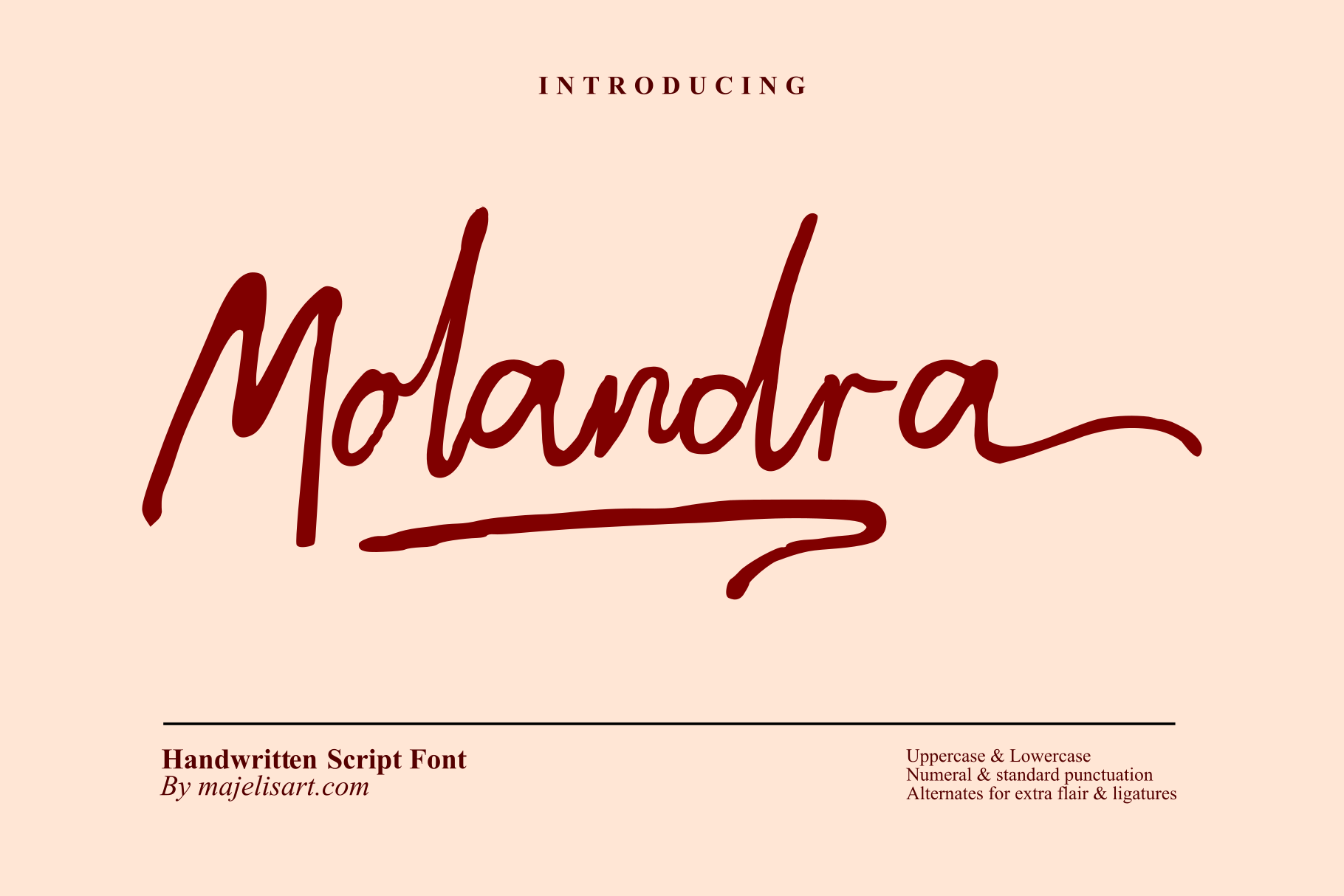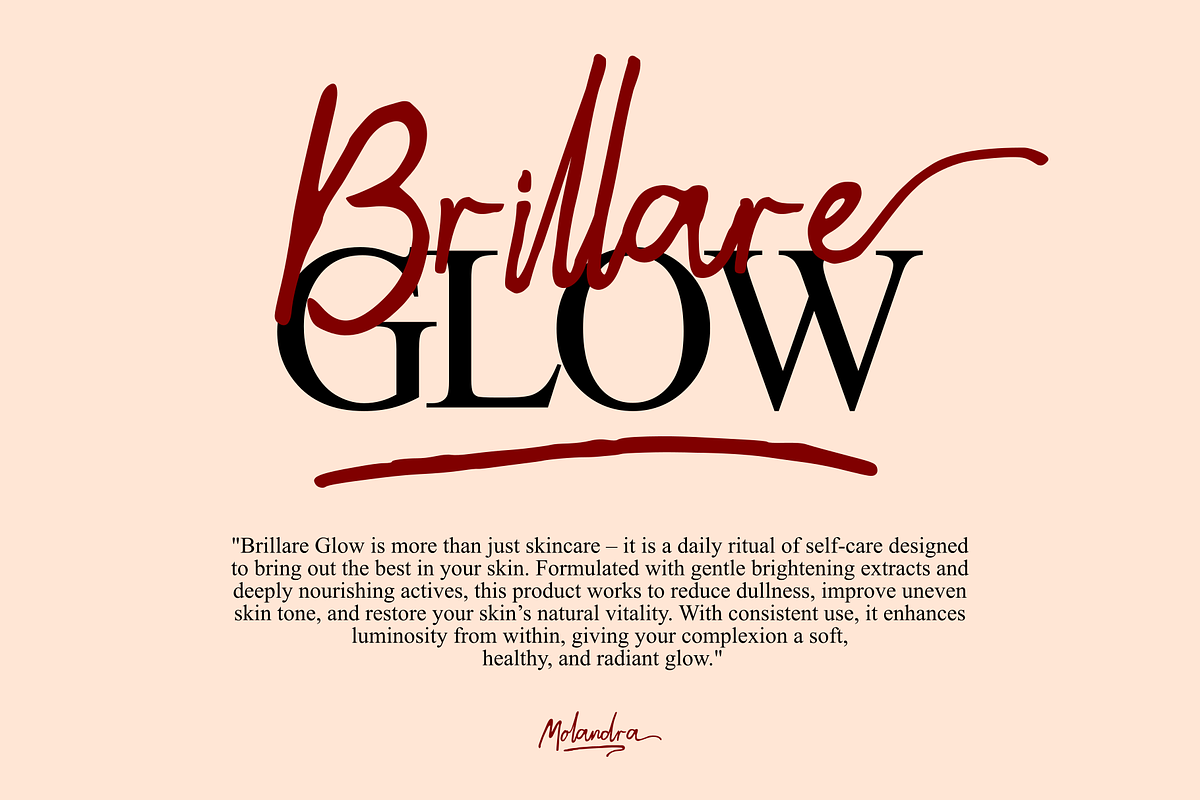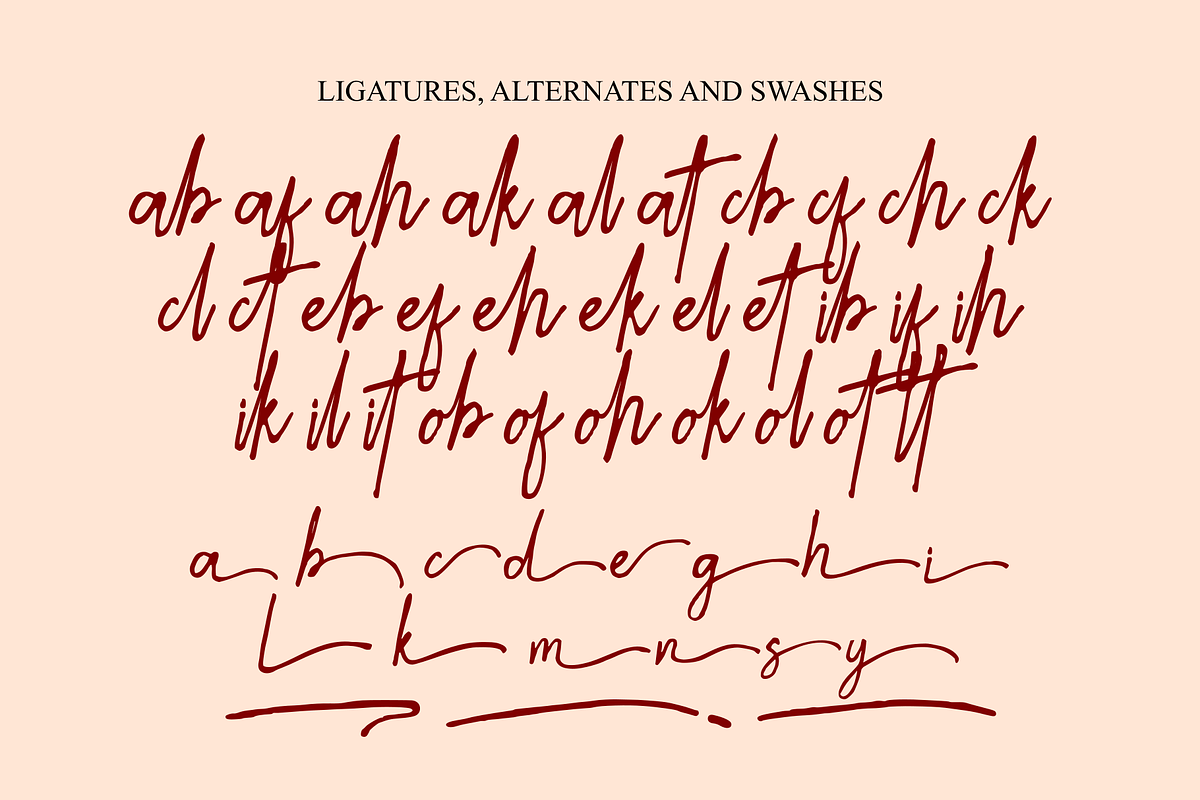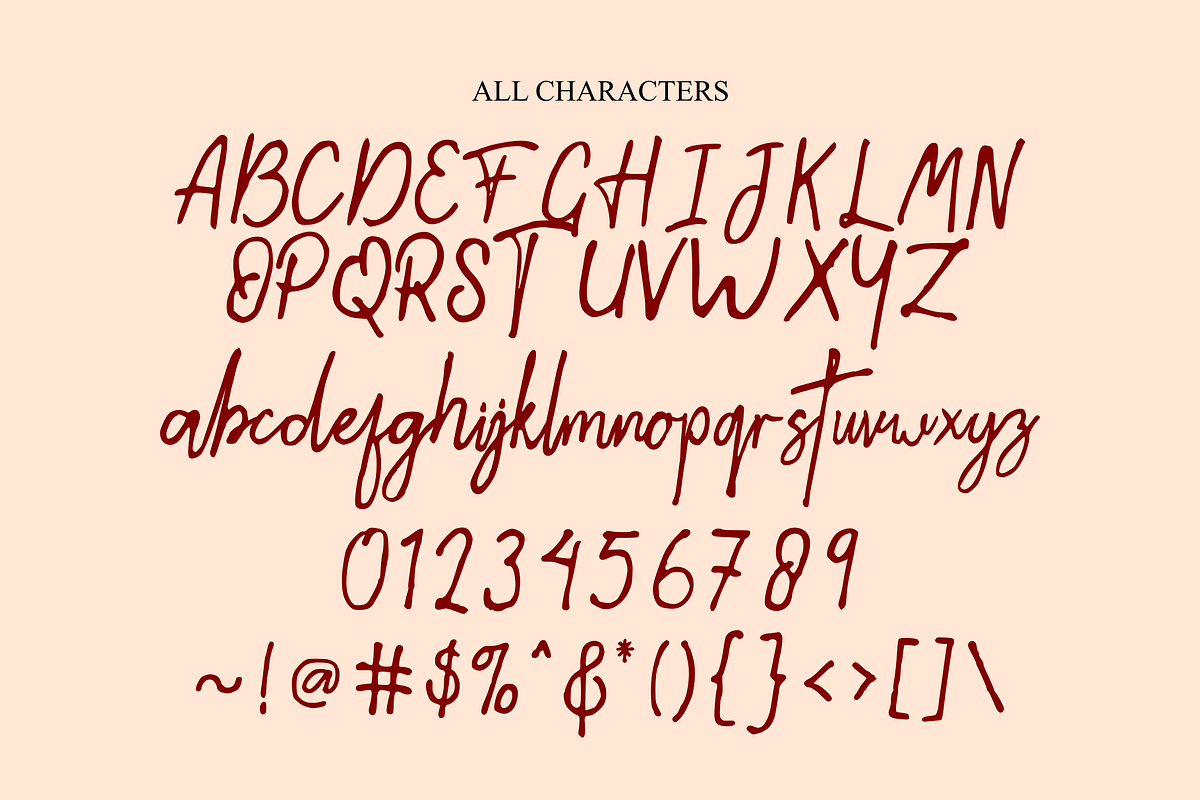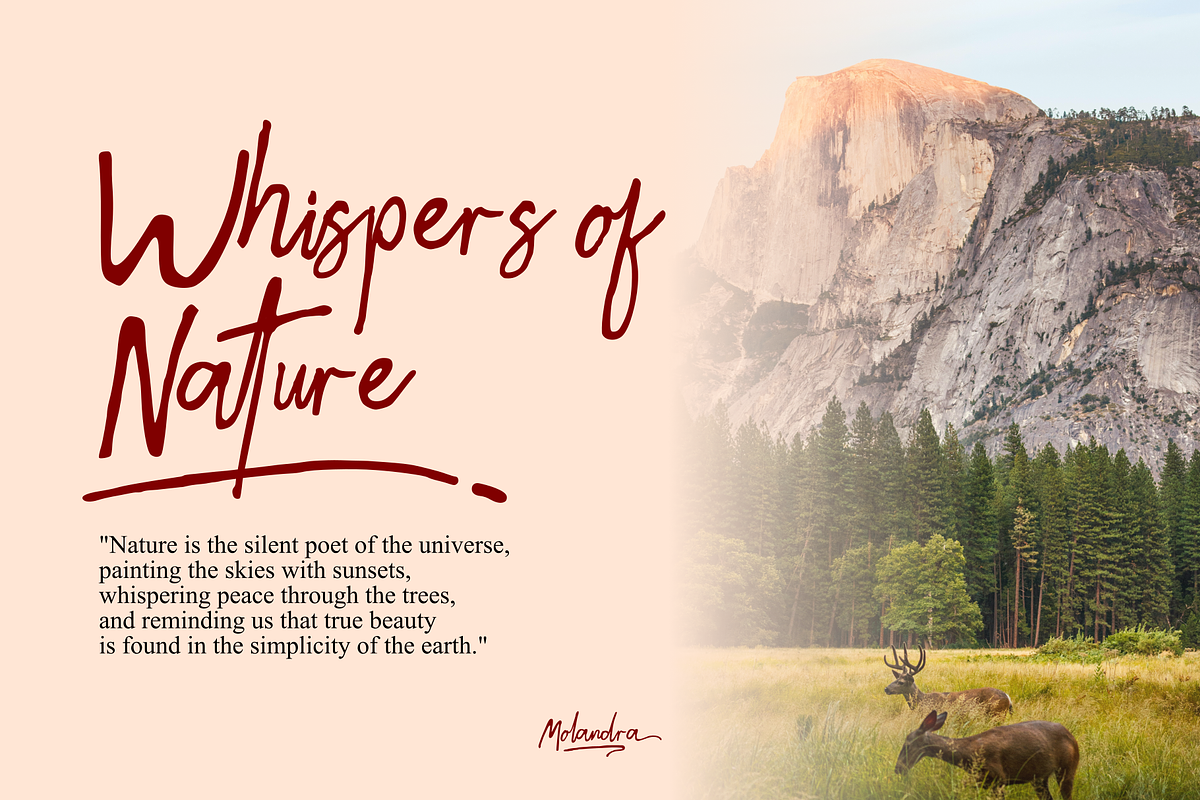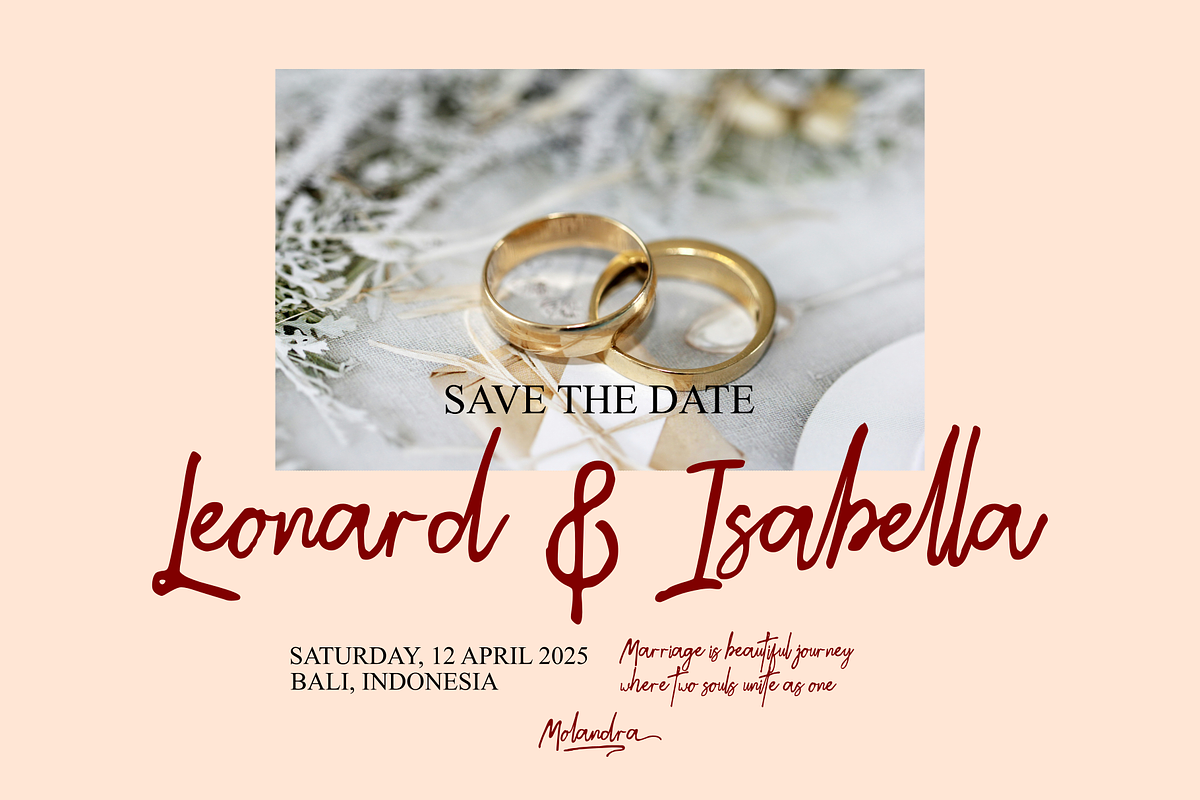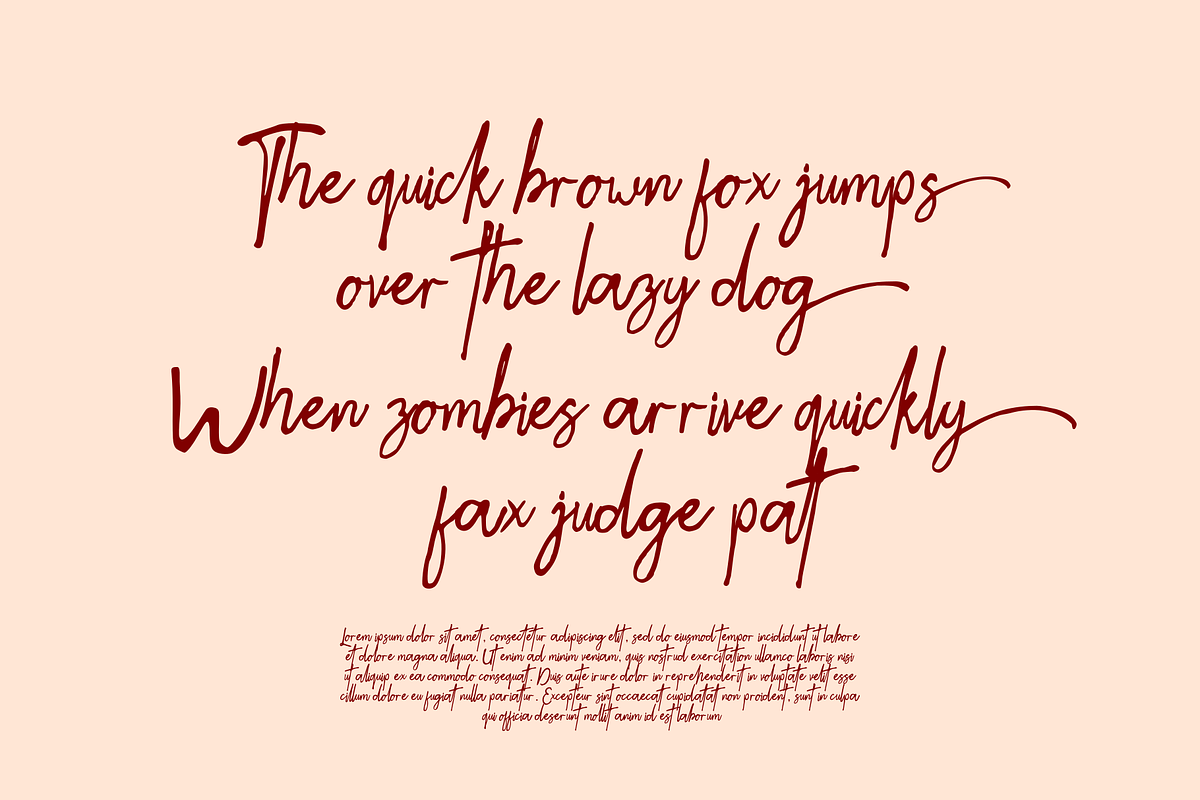
Molandra - Handwritten Font
MOLANDRA – Stylish Handwritten Script Font
Molandra is a modern handwritten script font that captures the natural flow of authentic handwriting. With its smooth strokes, slightly bold lines, and elegant swashes, this font delivers a perfect balance between casual style and refined aesthetics.
Designed to feel personal yet professional, Molandra brings warmth and character to your designs. Its fluid letterforms and dynamic baseline create a lively and expressive look, making every word feel handcrafted and unique.
Handwritten Script Style
Smooth & Natural Flow
Stylish Swashes
Perfect for: Molandra is versatile and works beautifully across many creative projects, such as:
Logo design & branding
Signature logos
Social media graphics & Instagram posts
Packaging design (handmade products, food, lifestyle)
Quotes & typography artwork
Wedding invitations & stationery
Posters & flyers
Fashion & lifestyle branding
Website headers & blog design
Whether you're aiming for a casual handwritten feel or a stylish modern look, Molandra adds a natural and elegant touch that makes your design stand out.